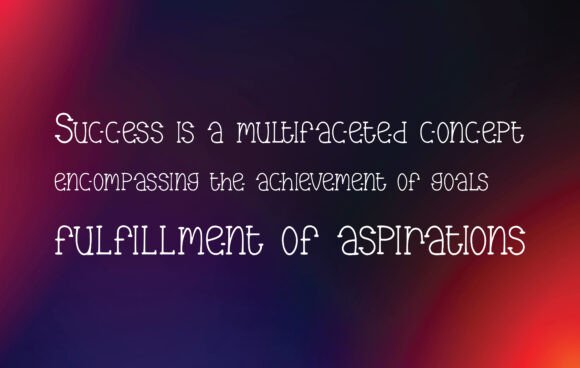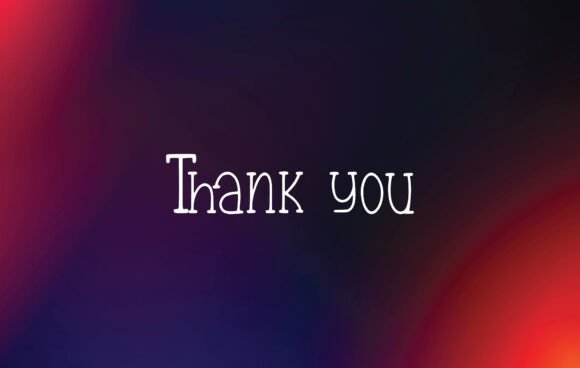
Introduction to Kyri Font
Kyri is a lovely and beautiful handwritten font.
Key Features of Kyri Font
Why Choose Kyri Font?
Kyri Font offers exceptional quality and versatility, making it a valuable addition to your design toolkit. Whether you’re creating for personal projects or commercial use, Kyri Font delivers professional results.